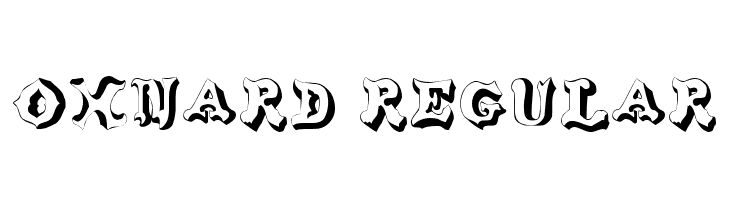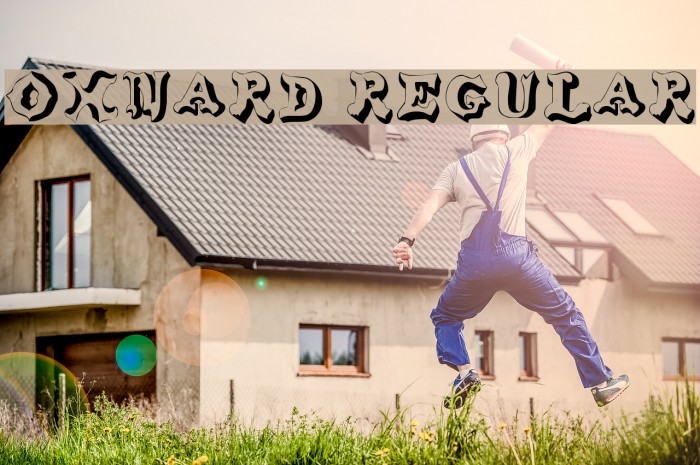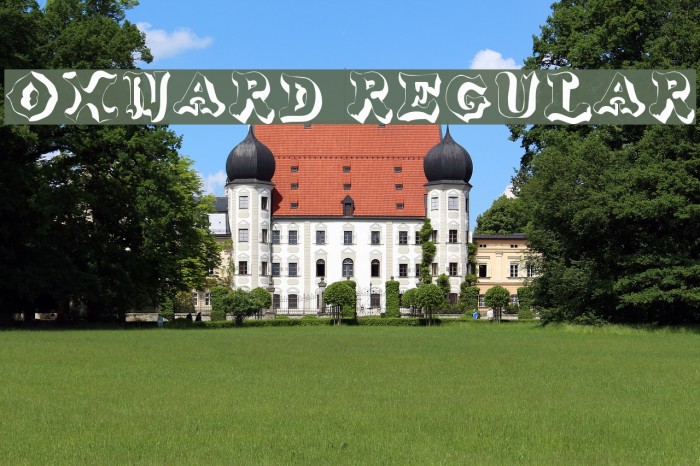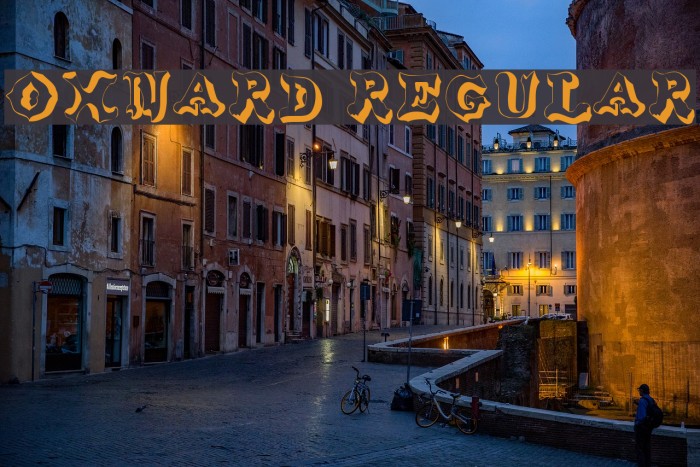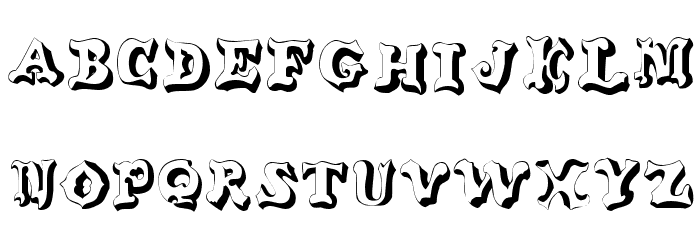
Oxnard Regular Font
Oxnard Regular Description
This font features a bold and decorative style with a strong presence. Each character is intricately designed with a shadow effect, creating a three-dimensional appearance. The uppercase letters are particularly striking, with ornate detailing that adds a sense of elegance and sophistication. The font's unique style makes it stand out, ideal for projects that require a distinct and memorable look. The characters are well-spaced, ensuring readability despite their decorative nature. This font is perfect for creating eye-catching headlines, posters, and branding materials that demand attention.
| Proposed Projects | Ideal for headlines, posters, branding, and any project needing a bold, decorative touch. |